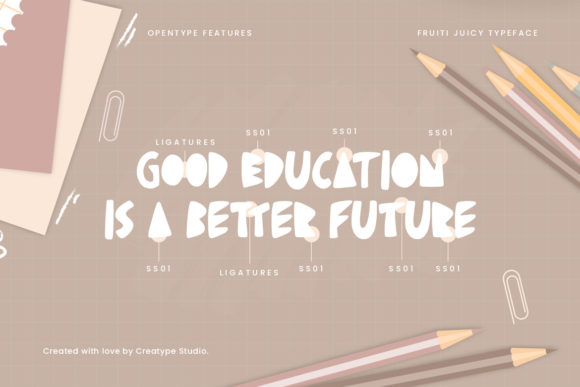
Fruiti Juicy Font: The Ultimate Display Font for Crafty Designs
Are you a designer or crafter looking for a font that can add a touch of fun and playfulness to your projects? Look no further than Fruiti Juicy Font! This cool, friendly, and playful display font is perfect for elevating a wide range of crafting ideas, from cards to branding, labels, and more.
What Makes Fruiti Juicy Font So Special?
Fruiti Juicy Font is a unique and versatile font that can add a pop of personality to any design project. Its playful and friendly vibe makes it perfect for crafters and designers who want to create fun and engaging designs. Whether you’re creating handmade cards, party invitations, or branding materials, Fruiti Juicy Font is sure to make your designs stand out.
Key Features of Fruiti Juicy Font
- PUA Encoded: Fruiti Juicy Font is PUA encoded, which means you can access all glyphs and swashes with ease. This makes it easy to use and customize the font to suit your design needs.
- Playful and Friendly: The font has a playful and friendly vibe that is perfect for creating fun and engaging designs.
- Display Font: Fruiti Juicy Font is a display font, making it perfect for headlines, titles, and other display text.
- Versatile: The font can be used for a wide range of crafting ideas, from cards to branding, labels, and more.
Uses for Fruiti Juicy Font
Fruiti Juicy Font is a versatile font that can be used for a wide range of design projects. Here are some ideas to get you started:
- Handmade Cards: Add a touch of personality to your handmade cards with Fruiti Juicy Font.
- Party Invitations: Create fun and engaging party invitations with Fruiti Juicy Font.
- Branding: Use Fruiti Juicy Font to create unique and memorable branding materials, such as logos and packaging.
- Labels: Add a touch of fun and personality to your labels with Fruiti Juicy Font.
- Social Media Graphics: Use Fruiti Juicy Font to create fun and engaging social media graphics.
Tips for Using Fruiti Juicy Font
Here are some tips for using Fruiti Juicy Font:
- Experiment with Different Sizes: Fruiti Juicy Font looks great in a variety of sizes, so don’t be afraid to experiment and find the perfect size for your design.
- Pair with Other Fonts: Fruiti Juicy Font pairs well with other fonts, so try pairing it with a serif or script font to create a unique and interesting design.
- Use Swashes and Glyphs: Take advantage of the PUA encoding and use the swashes and glyphs to add extra personality to your design.
Fruiti Juicy Font is a fun, friendly, and playful display font that is perfect for crafters and designers who want to add a touch of personality to their designs. With its PUA encoding, playful vibe, and versatility, Fruiti Juicy Font is sure to become a go-to font in your design arsenal. So why wait? Download Fruiti Juicy Font today and start creating fun and engaging designs!